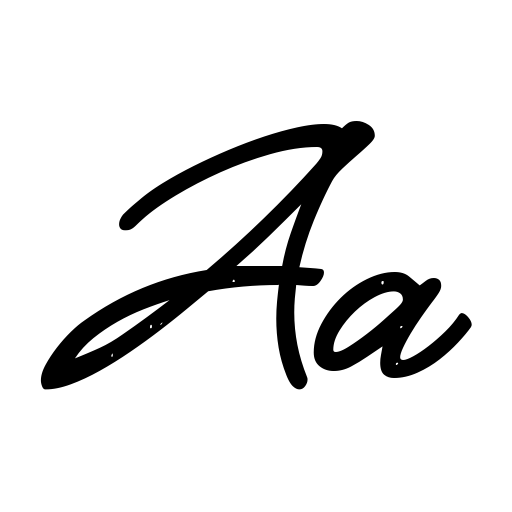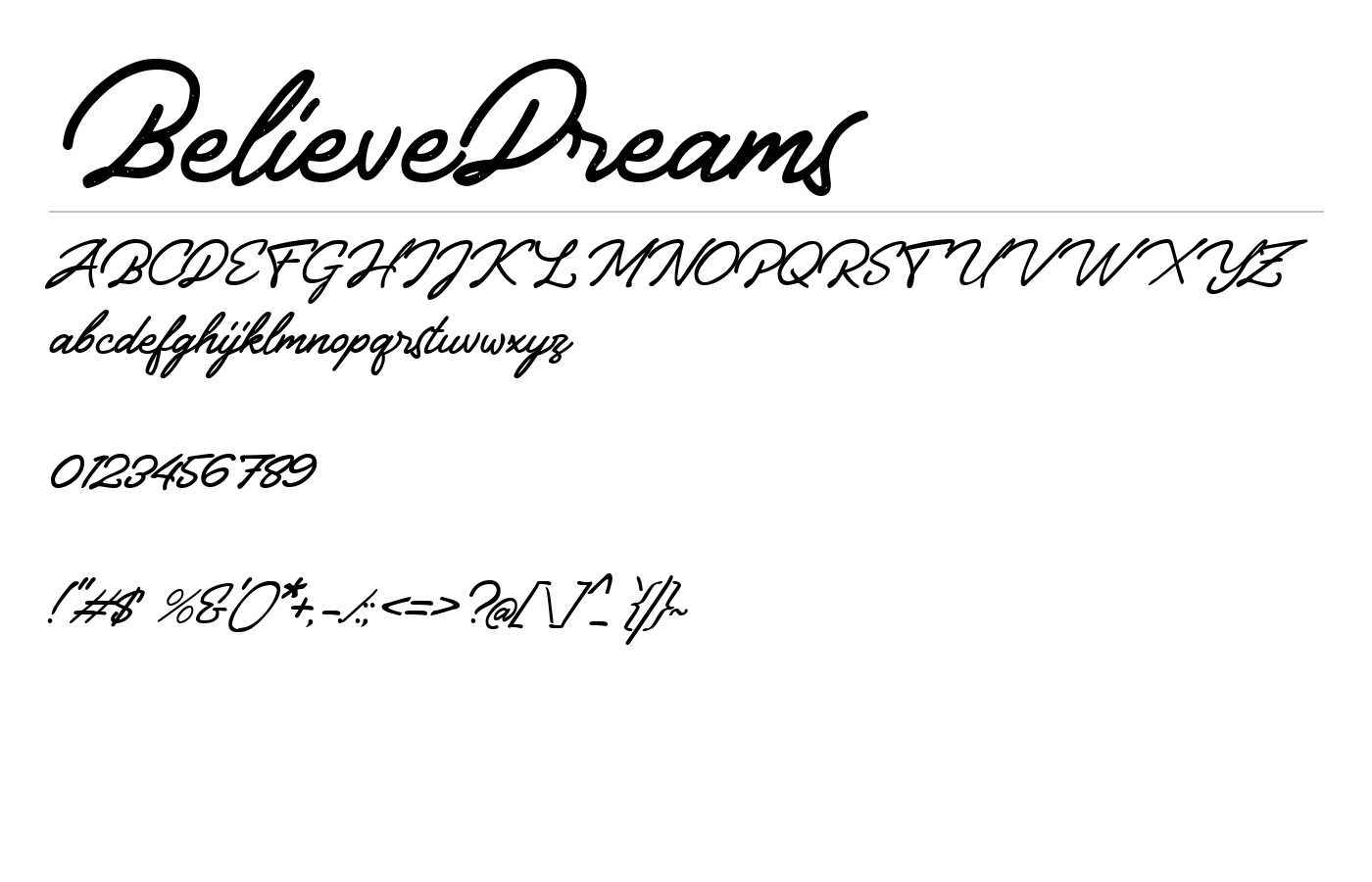
BelieveDreams is a flowing script font with elegant, smooth strokes and a medium weight that evokes a sense of sophistication and personal touch. Its connected letterforms and italicized style make it perfect for stylish branding, invitations, and creative headlines where a warm, inviting, and graceful feel is desired. This font shines best when used to convey emotion and individuality in designs that require a handwritten, artistic vibe.
BelieveDreams Font
About BelieveDreams Font
| Font family | BelieveDreams Font |
| Designer | Pollux of Geminorum |